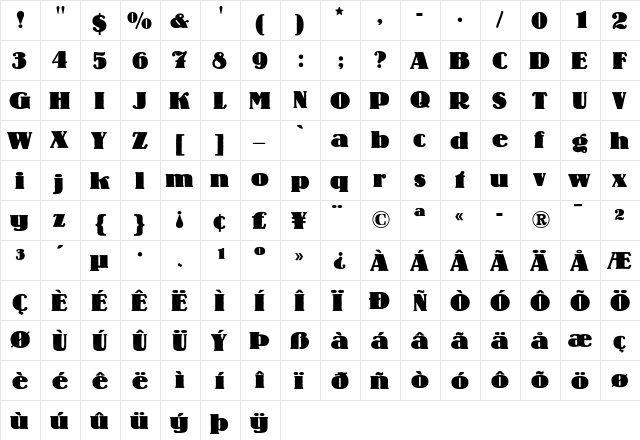
Lo-Type Bold
Design Context for Lo-Type Typeface
Lo-Type is a composed and adaptable typeface that performs quietly and consistently across a wide range of design contexts. The heavy weight commands attention and anchors typographic hierarchies.